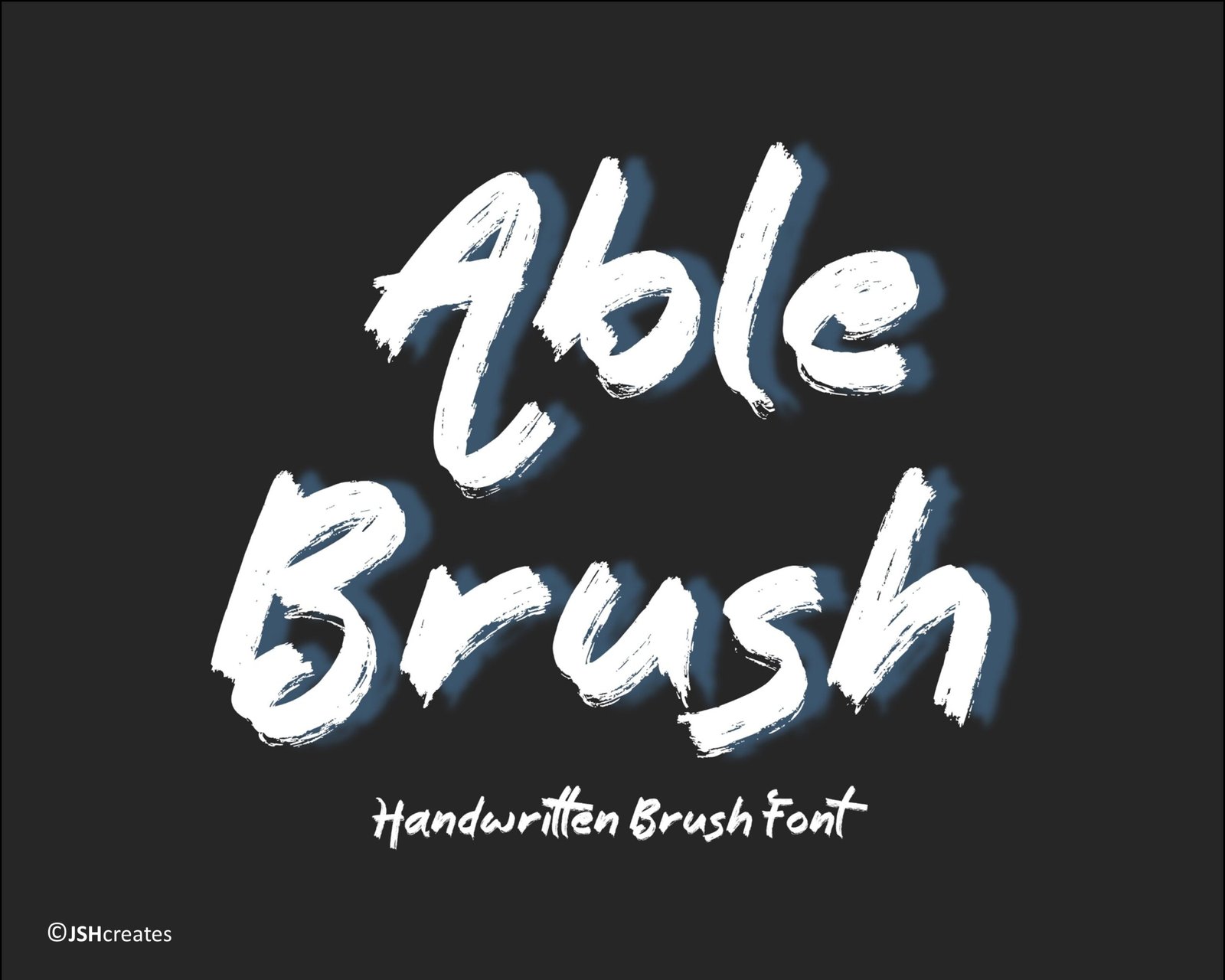
Able Brush Font
Handwritten Brush font. “Able Brush”. Perfect for advertising and display purposes, including banners, book covers, shirts, posters, logos and much more!